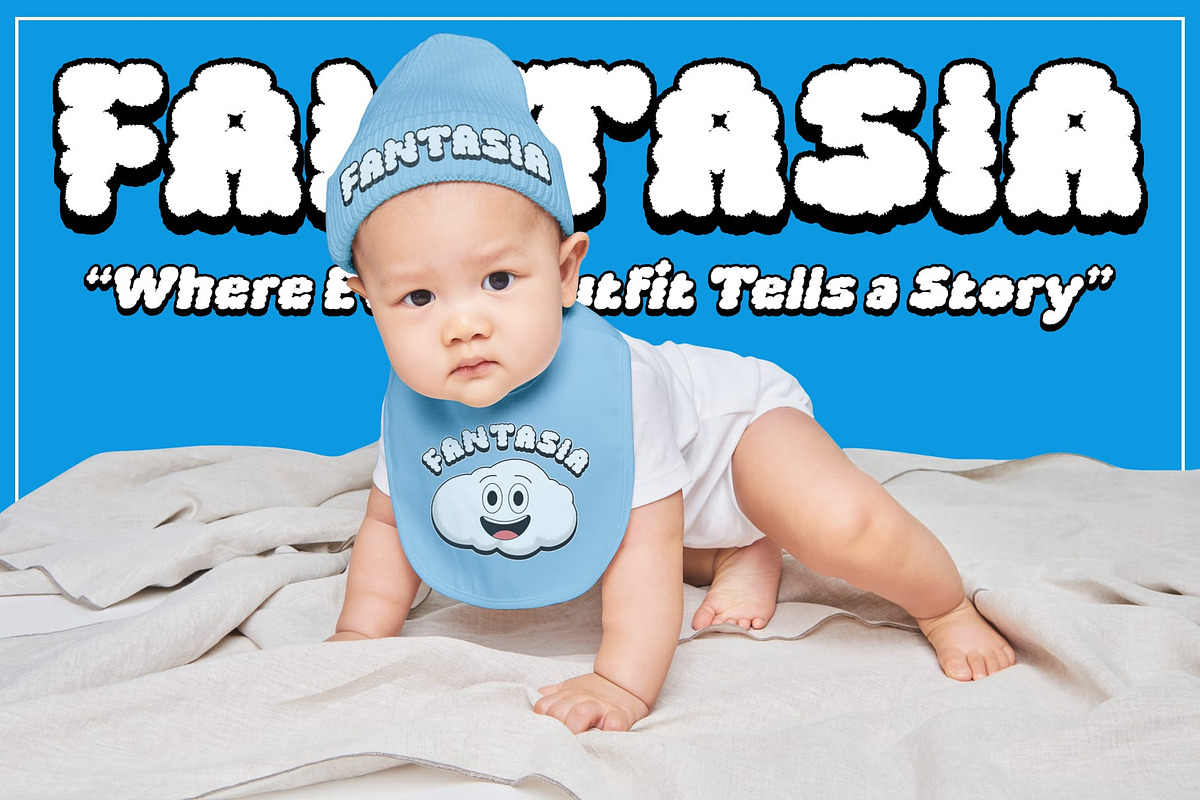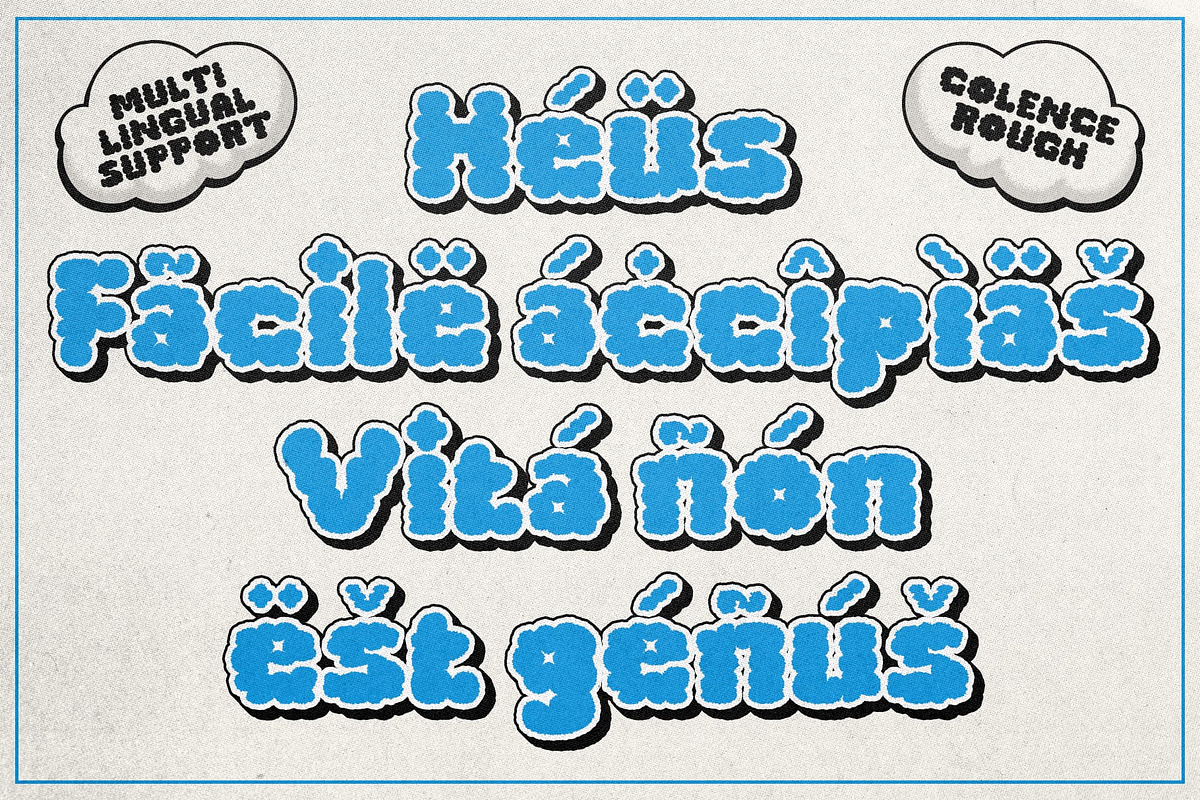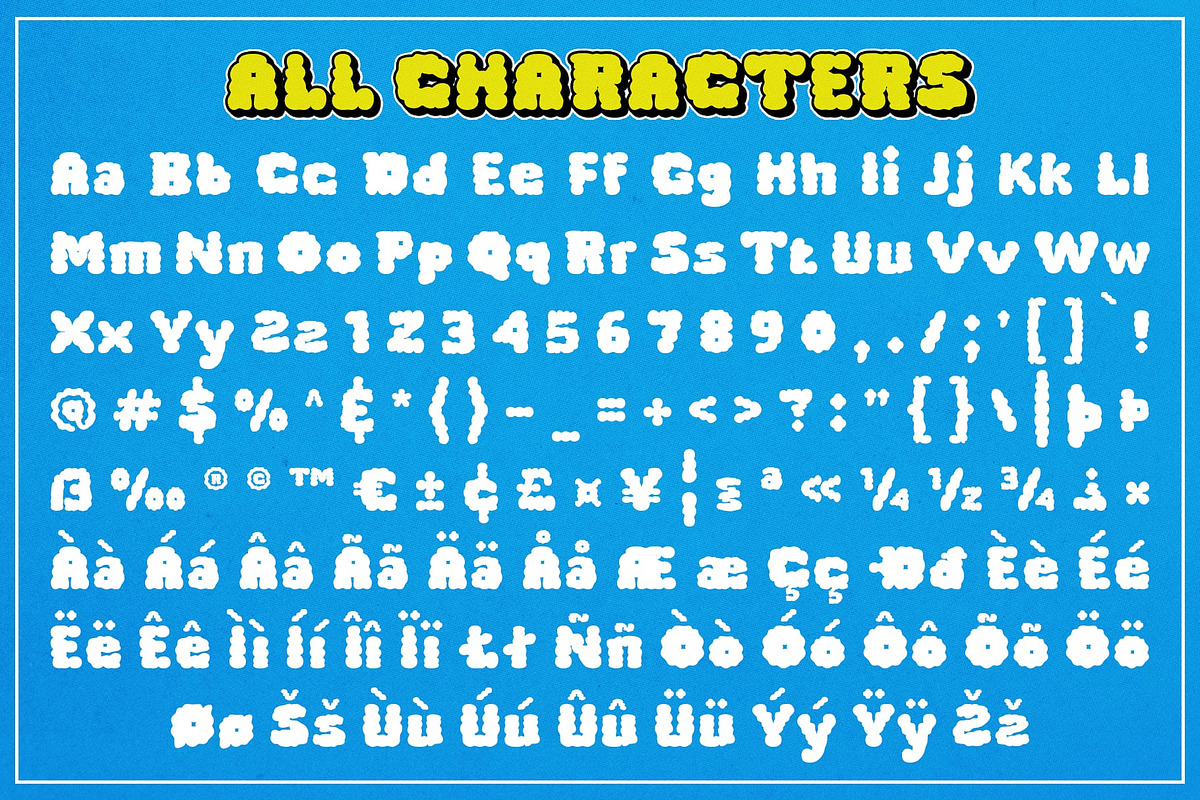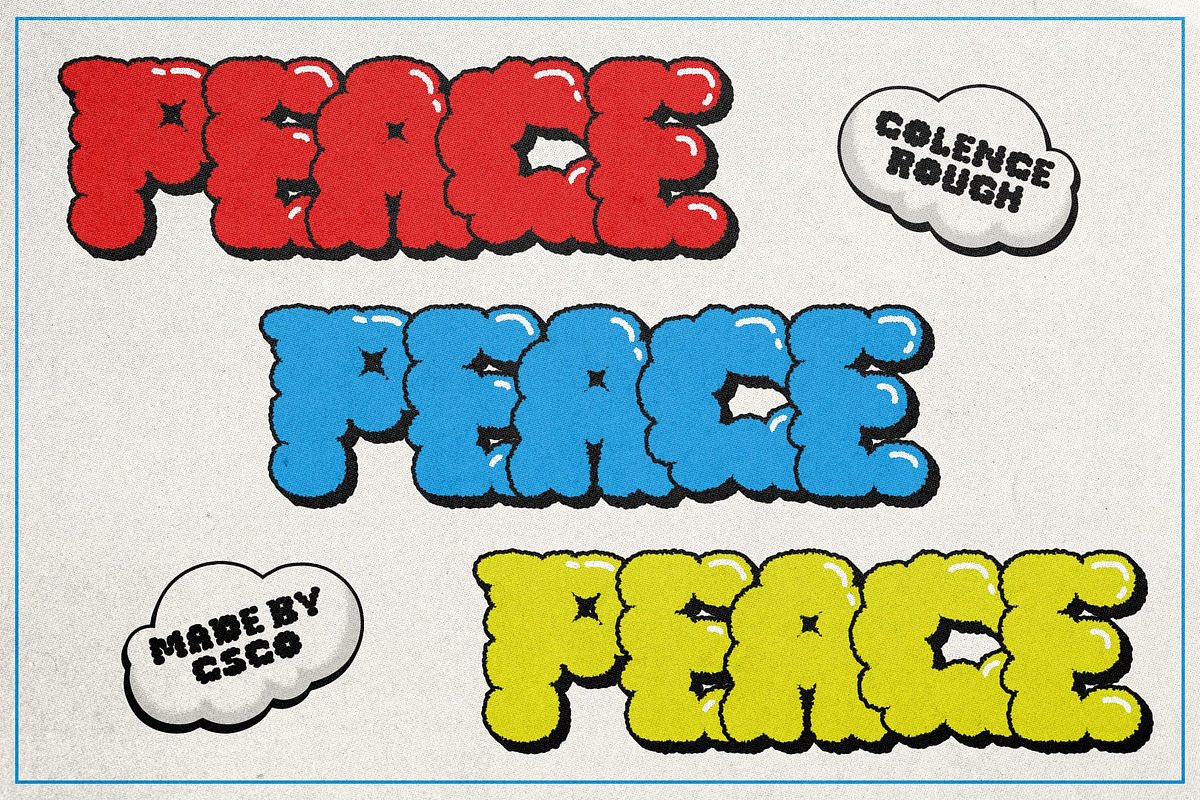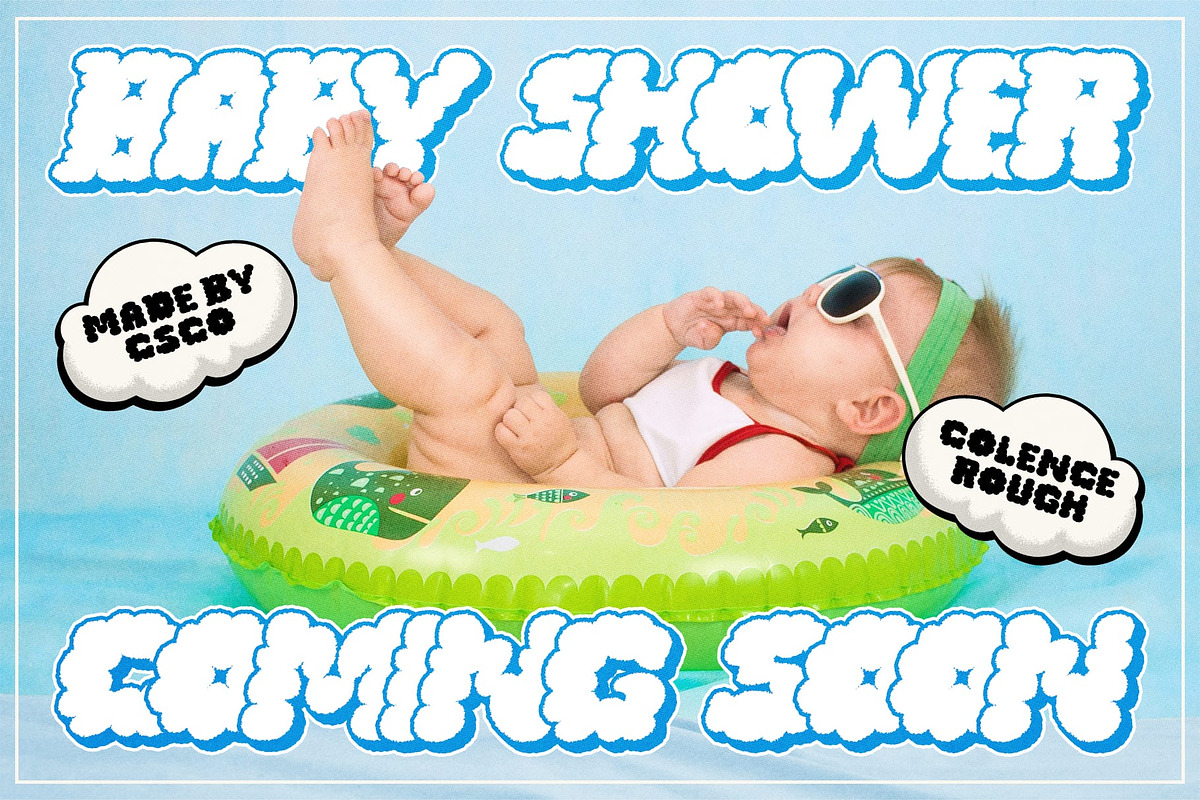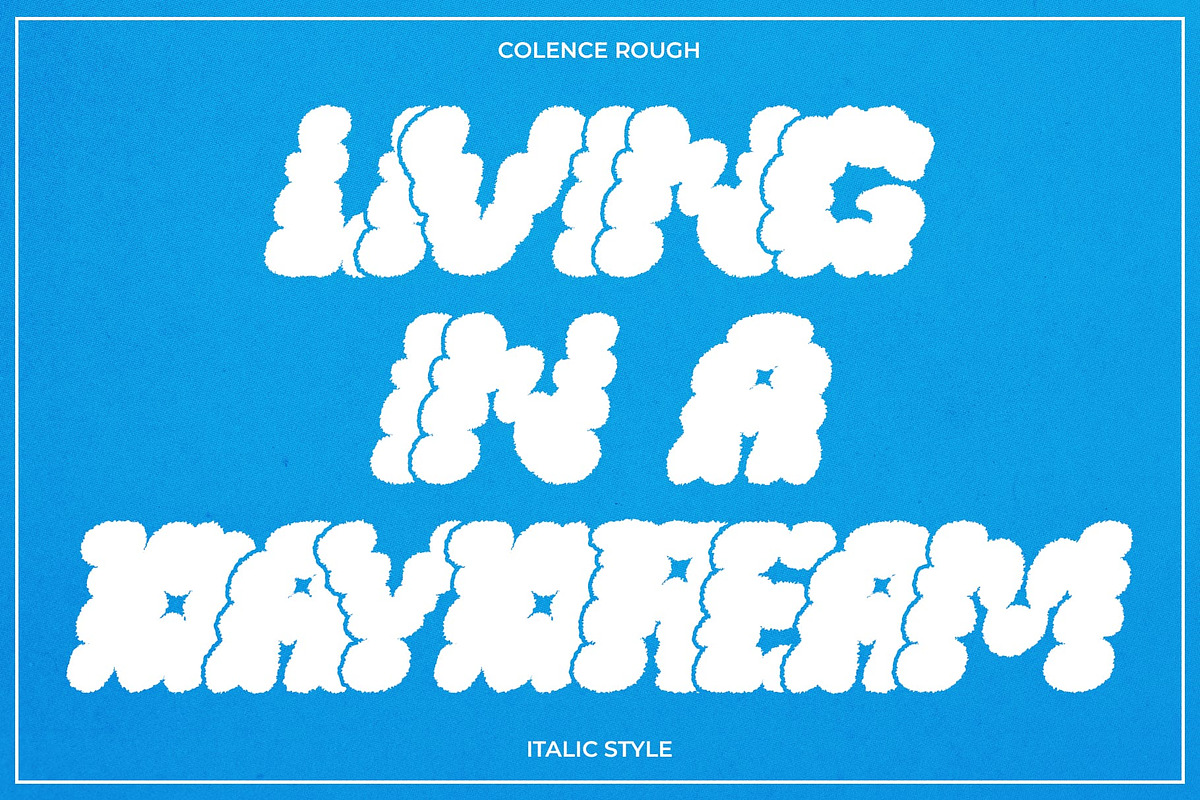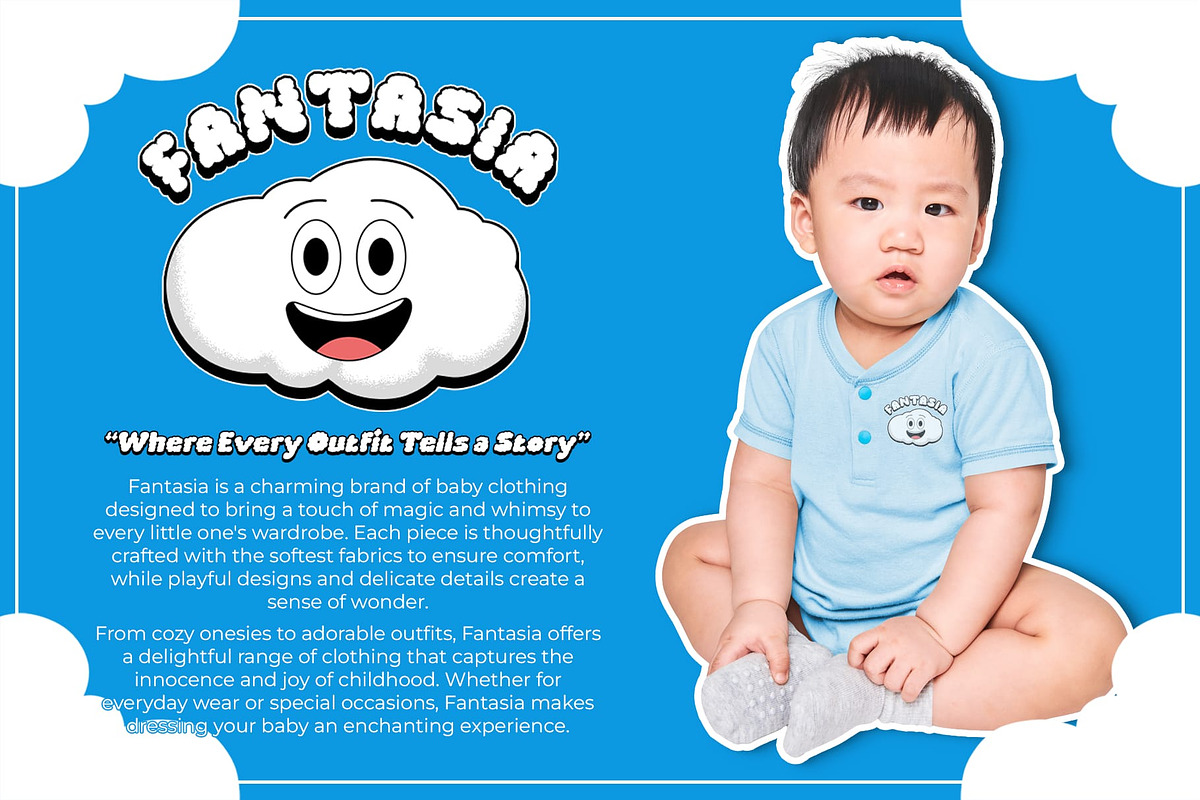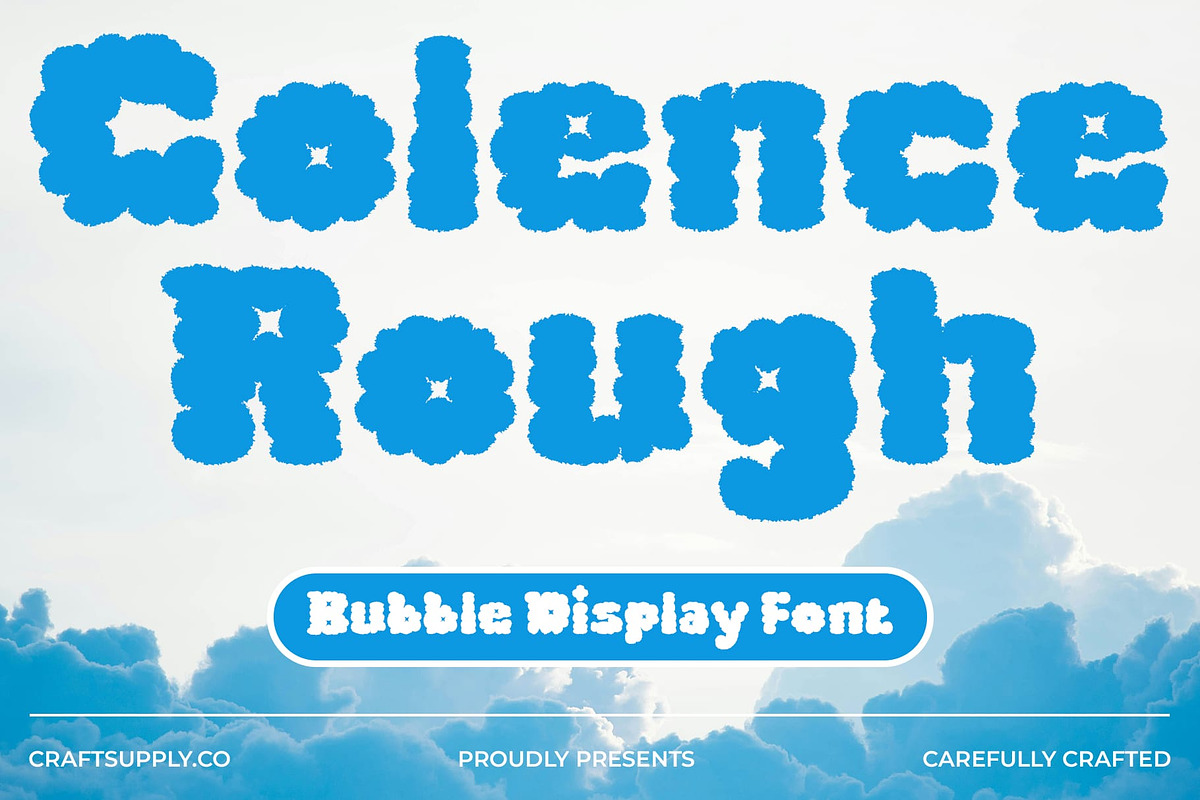
Colence Rough
Colence Rough – Cloud-Like Bubble Display Font: Playful and Creative
Display Bubble Font with a Rough Effect Colence Rough is a cloud-like bubble display font that exudes a cute, funky, and cheerful vibe. The rounded, soft letterforms resemble clouds, creating a playful and joyful atmosphere that brings imagination to life.
Rough Effect for Artistic Appeal The rough effect in Colence Rough adds texture and unique character, enhancing its artistic and creative appeal. This effect gives the font a handmade, organic feel, making it perfect for designs that want to stand out.
Ideal for Fun and Creative Designs Colence Rough is the ideal choice for designs emphasizing fun and creativity. Whether you’re working on posters, product packaging, branding, or social media content, this font captures attention and evokes a sense of happiness and playfulness.
Versatile Usage Across Various Projects Despite its playful nature, Colence Rough offers versatility for a wide range of creative projects. Its cheerful vibe makes it suitable for anything from children’s products to quirky brand identities, ensuring your designs leave a lasting impression.